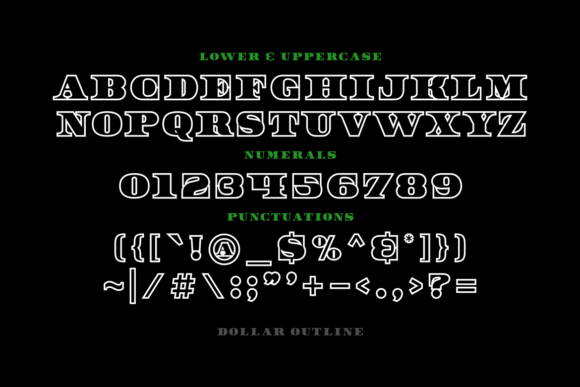
Dollar Outline is a serif display font inspired by banknotes, suitable for classic and vintage designs. This font is a must-have in your library, as it will make your creative projects beautiful and outstanding!
Dollar Outline Font